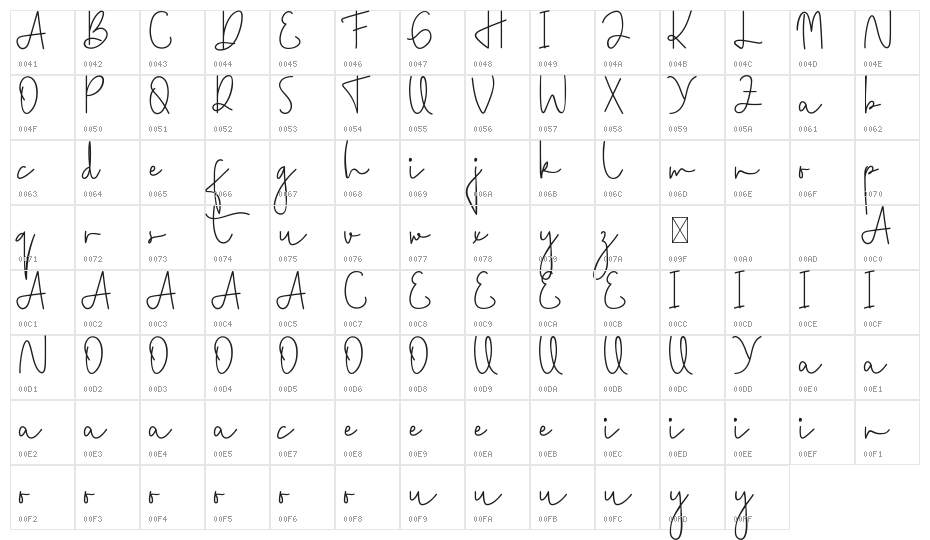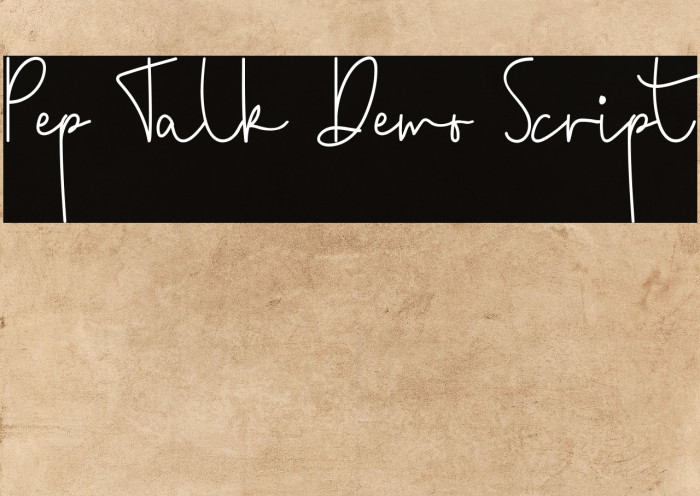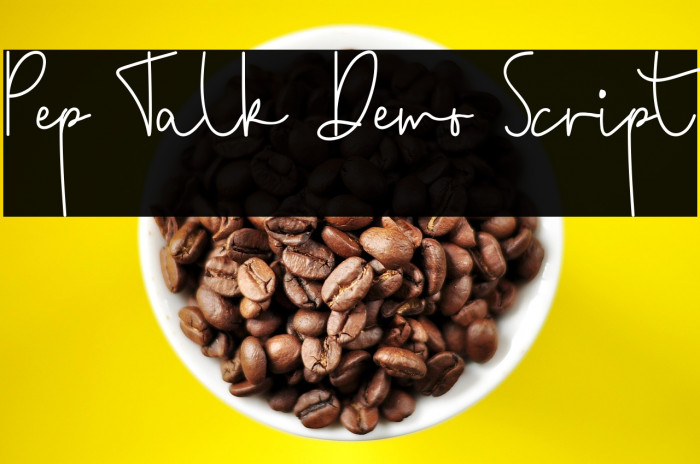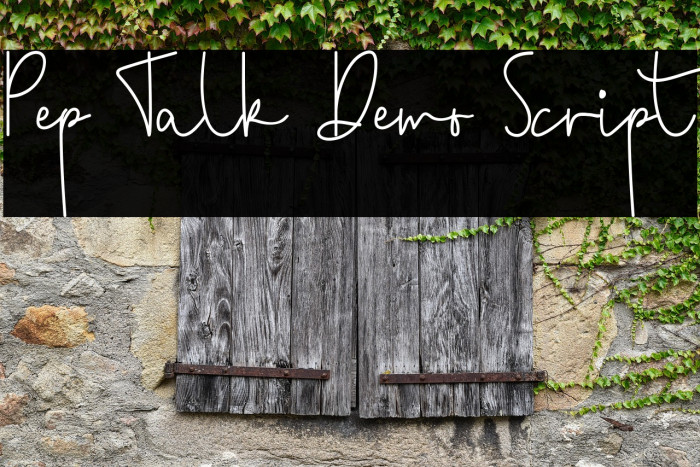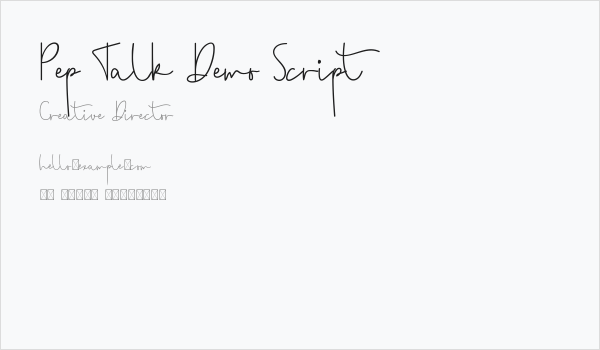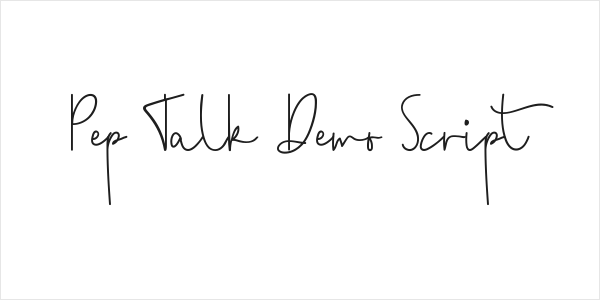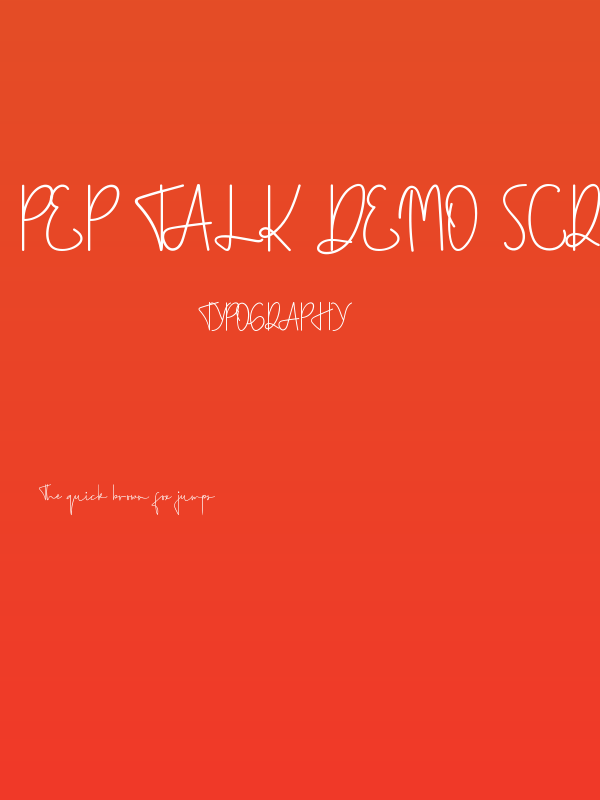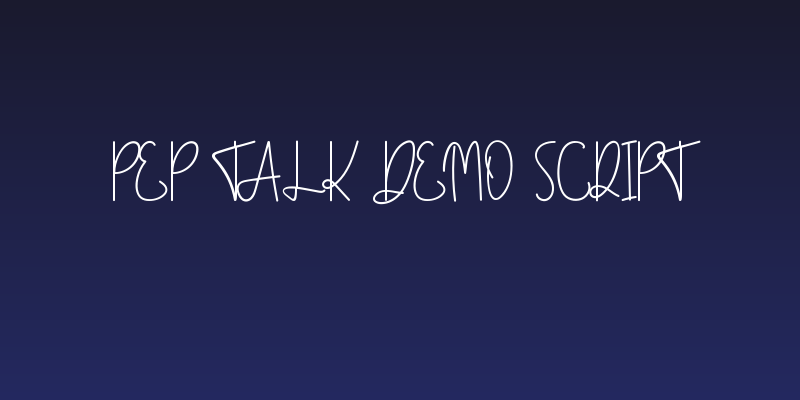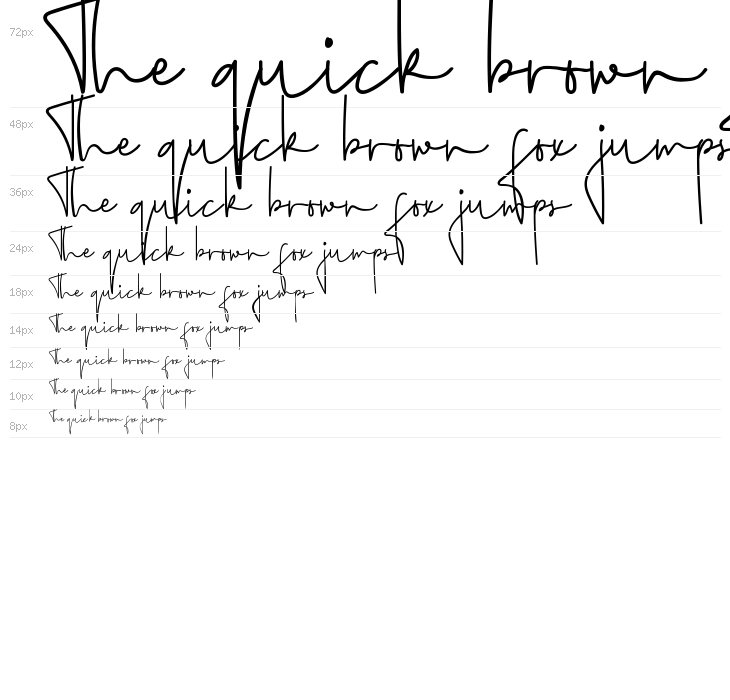
Pep Talk Demo Script Font
Pep Talk Demo Script Description
This font exhibits a playful and energetic handwritten style, characterized by its flowing, interconnected letters. The uppercase letters maintain a consistent height, while the lowercase letters vary in size, adding a dynamic and informal touch. The strokes are smooth and fluid, with a slight tilt that enhances the casual aesthetic. The font includes a full set of uppercase and lowercase letters, numbers, and a selection of special characters, making it versatile for various design needs. Its unique style is perfect for projects that require a personal and approachable feel.
| Overall Style | Casual |
| Use Case | Logos, Headlines, Informal Text |
| Proposed Projects | Ideal for greeting cards, personal branding, social media graphics, and informal invitations. |